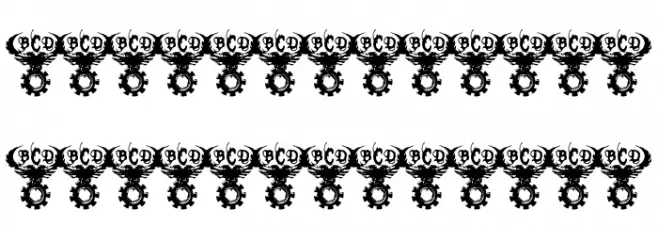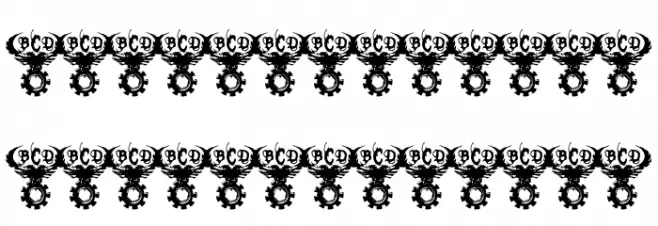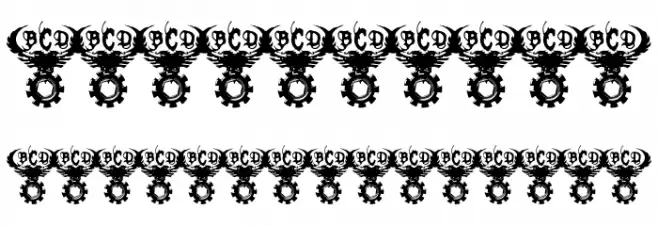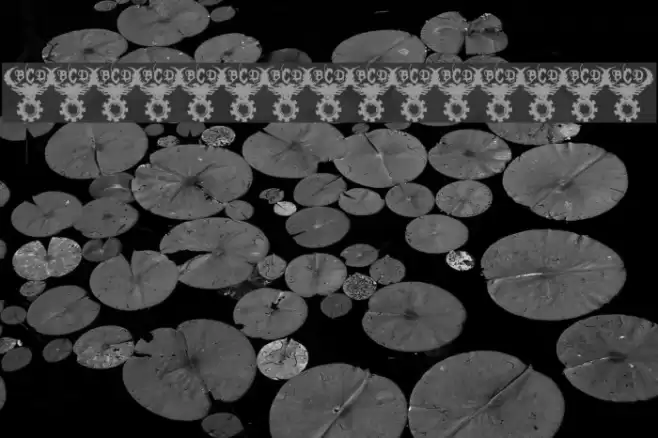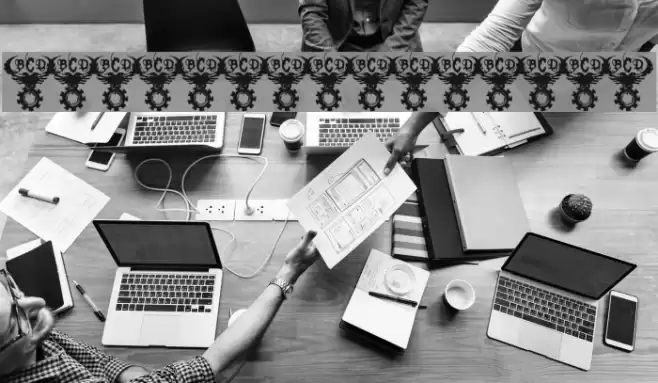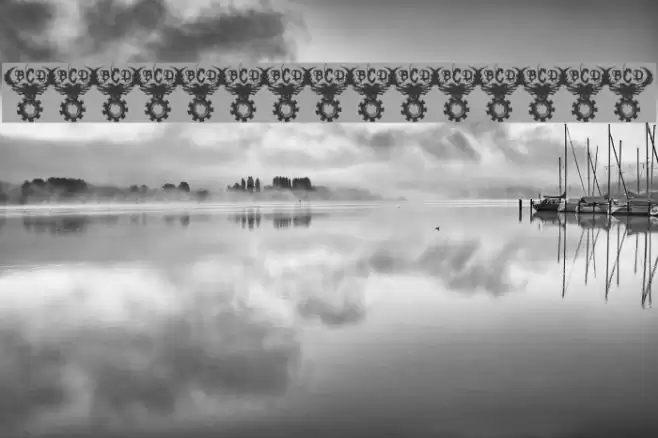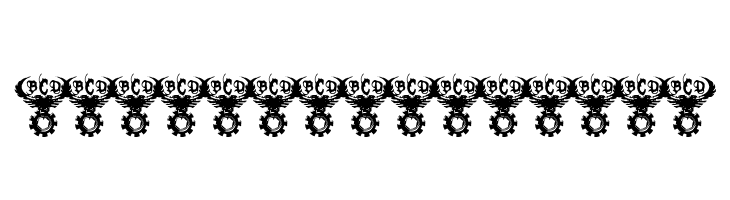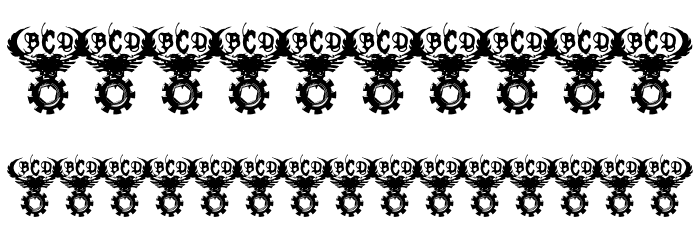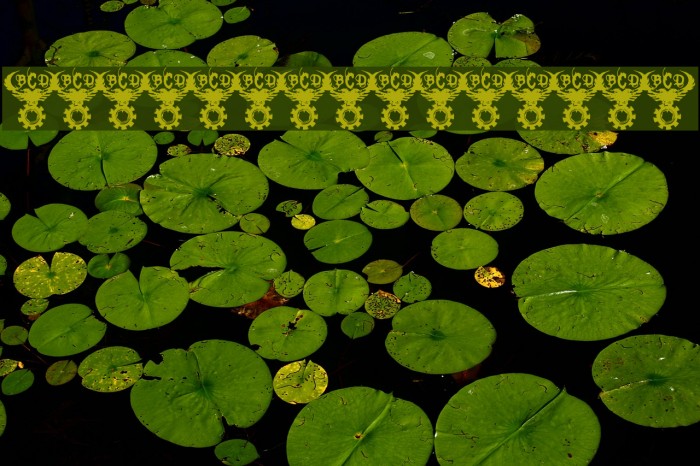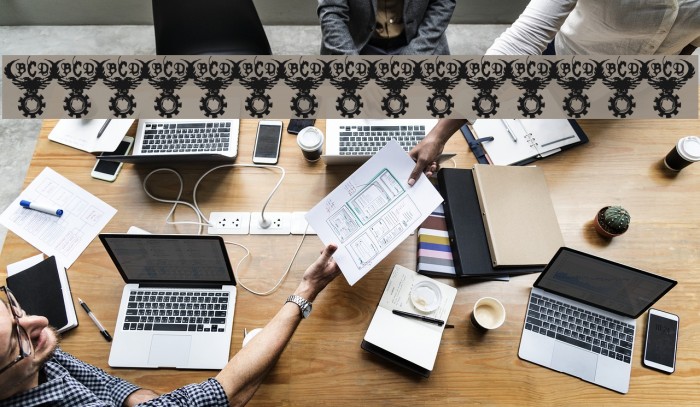
TEK HED BOLIMIC
This design features a highly decorative and intricate style, incorporating elements that resemble gears and mechanical components. The letters are encased within circular, gear-like shapes, giving a sense of industrial and steampunk aesthetics. The overall appearance is bold and striking, with a strong emphasis on mechanical motifs. The design is consistent across all characters, maintaining a uniform look that is both eye-catching and unique. This style is not a traditional font but rather a decorative pattern that integrates text with complex visual elements.
A decorative, gear-themed design with industrial aesthetics.
- Proposed Projects: Ideal for steampunk-themed projects, industrial design elements, or as a decorative motif in graphic design.
- Contrast: High
- Overall Style: Decorative
- Use Case: Logos, Decorative elements